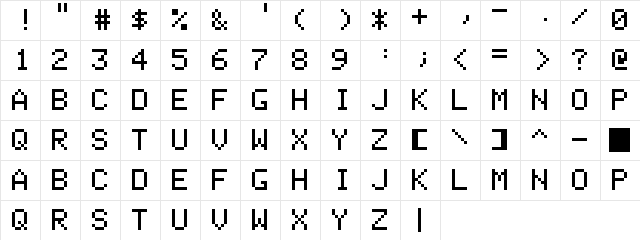
Apple II+ Regular
Design Context for Apple II+ Typeface
Apple II+ takes a measured approach to typography — its balanced proportions and neutral character make it a reliable workhorse for both digital and print work.